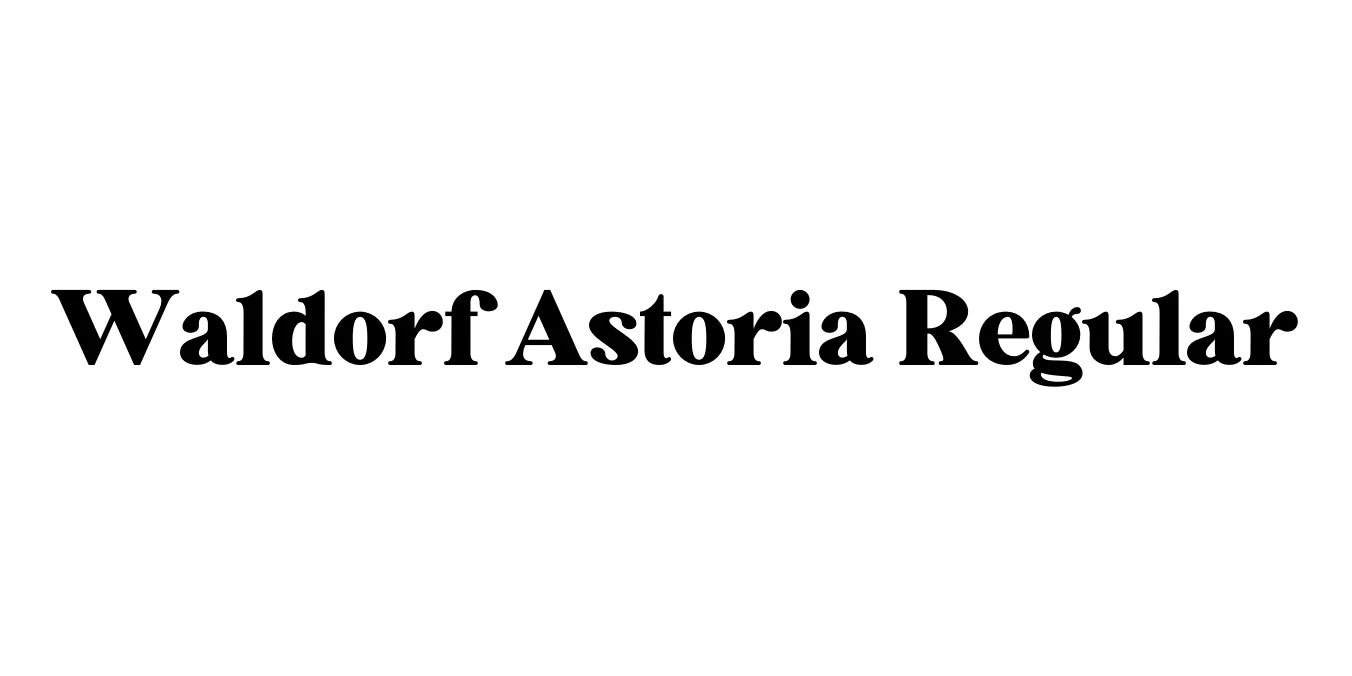
Waldorf Astoria Regular
Designed by Michael Hagemann (Fontmesa)
| Font Name | Waldorf Astoria |
| Category | Display / Art Deco |
| Designer | Michael Hagemann (Fontmesa) |
| Similar Fonts | Broadway, Metropolis, Park Lane, Peignot |
Waldorf Astoria Regular is a sophisticated display typeface that draws heavy inspiration from the glamorous Art Deco movement of the 1920s and 1930s. Designed to capture the luxury and elegance of high-end metropolitan life, the font features clean geometric lines, high-contrast strokes, and a rhythmic balance that evokes the architectural grandeur of the iconic New York hotel for which it is named. The typeface serves as a digital revival of the classic styles found in vintage travel posters and high-society advertisements.
This typeface is characterized by its distinctive letterforms and vintage flair, making it an ideal choice for projects that require a touch of historical class. Whether used for period-accurate design revivals or modern luxury branding, Waldorf Astoria Regular provides a timeless aesthetic that bridges the gap between classic jazz-age style and contemporary graphic design standards. Its sharp terminals and refined proportions ensure it remains legible while maintaining a strong decorative presence.
Waldorf Astoria Regular Best Uses
Perfect for luxury hotels, high-end boutiques, and sophisticated fashion logos.
Excellent for magazine headlines, book covers, and stylish pull-quotes.
Ideal for wedding invitations, formal gala announcements, and Gatsby-themed party decor.